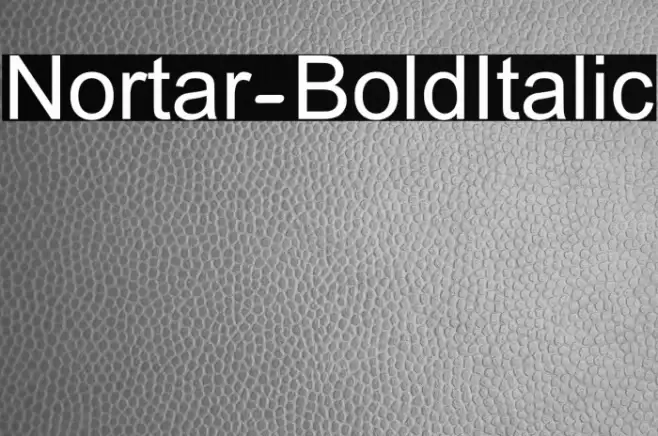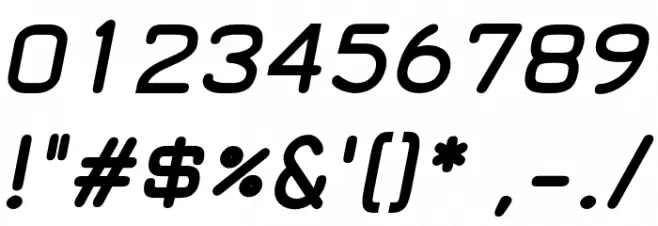
Nortar-BoldItalic Font
Nortar-BoldItalic Description
This font exhibits a clean and modern sans-serif style with a bold and italicized appearance. The characters are evenly spaced, providing a balanced and readable text flow. The uppercase letters are uniform in height, while the lowercase letters maintain a consistent baseline, enhancing readability. The numerals are clear and distinct, making them suitable for various applications. The special characters are well-defined, adding versatility to the font's usage. The overall design is sleek and contemporary, making it ideal for digital and print media.
A bold, italicized sans-serif font with a modern and clean design from Uncategorized fonts.